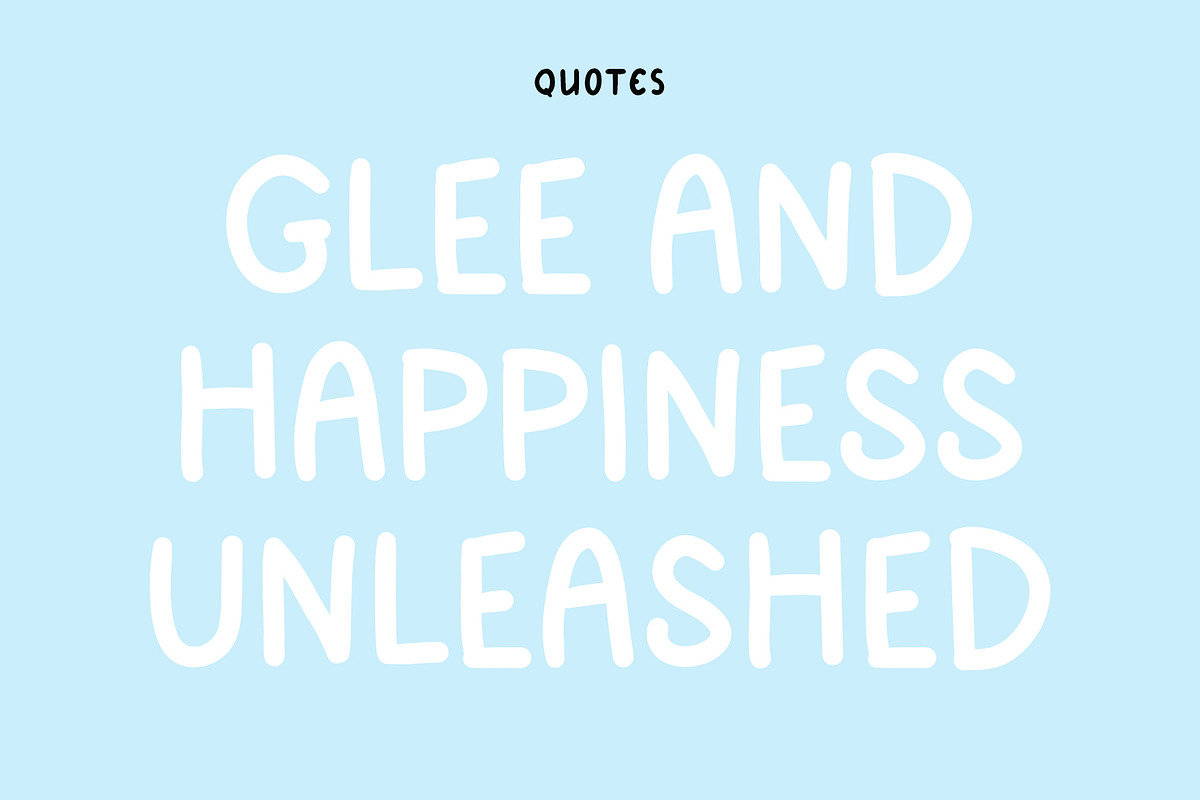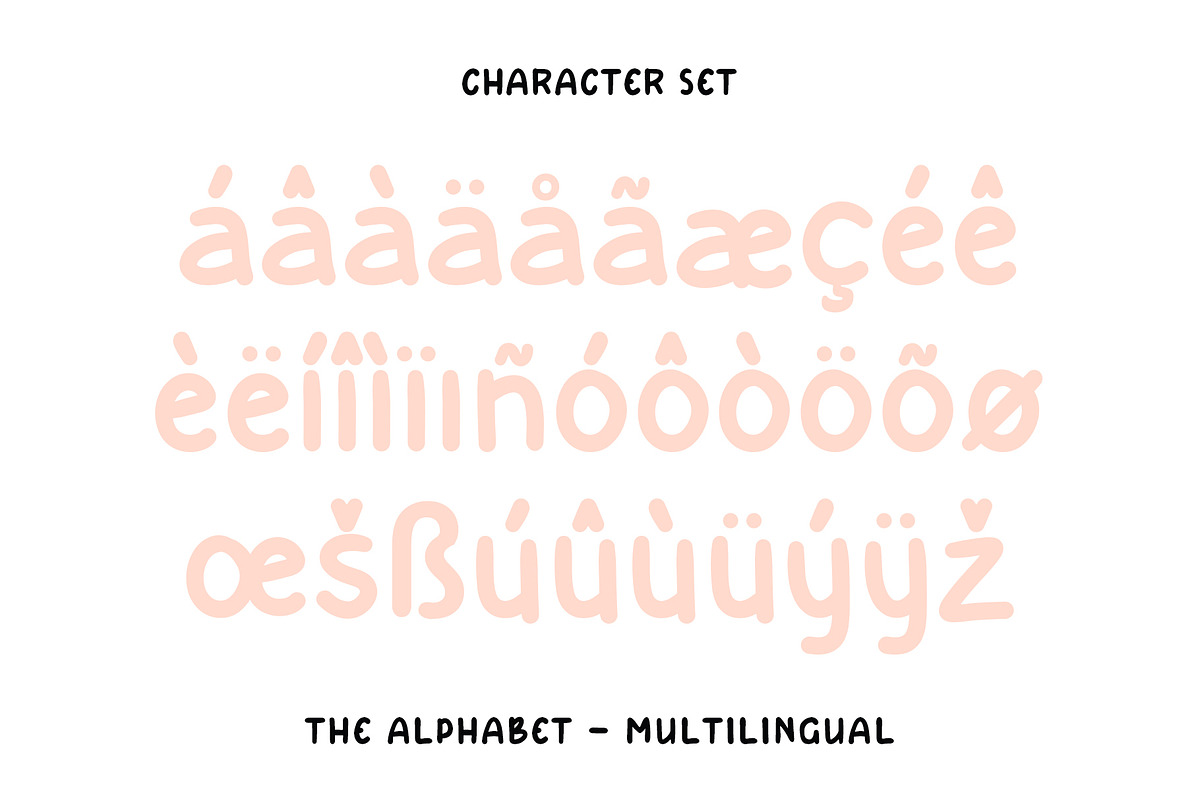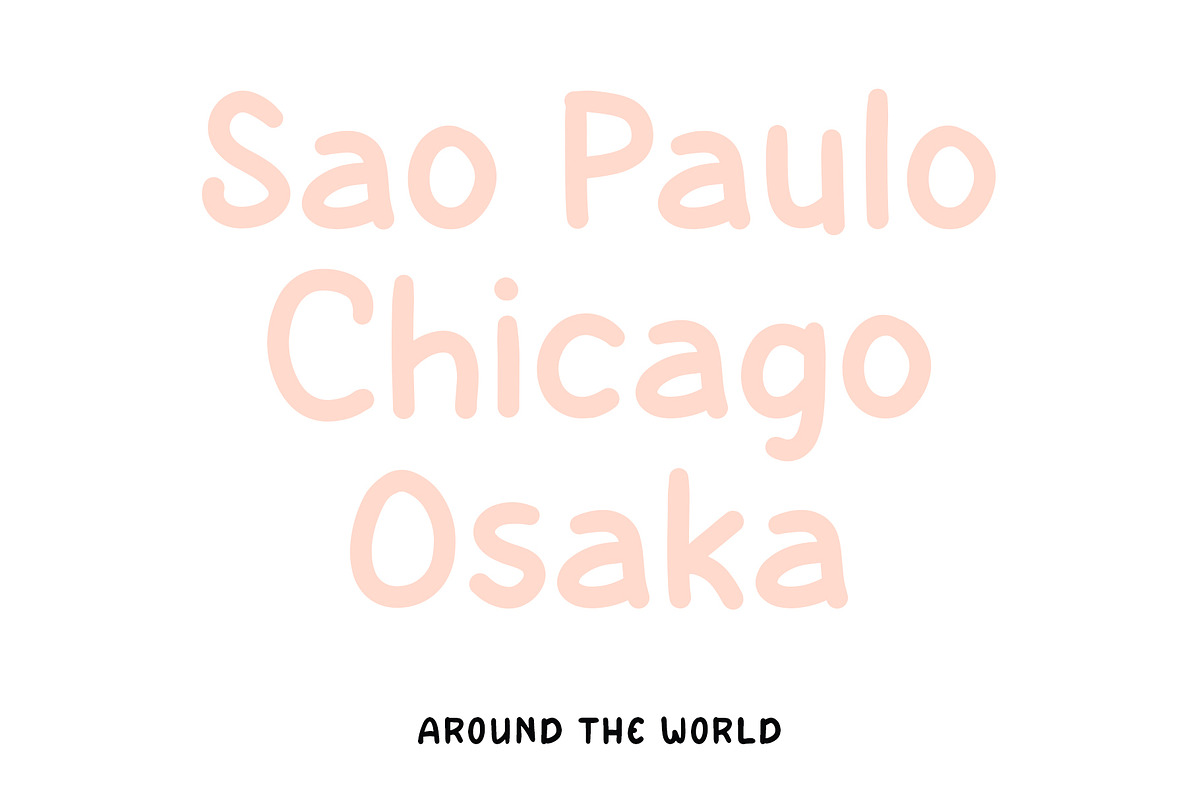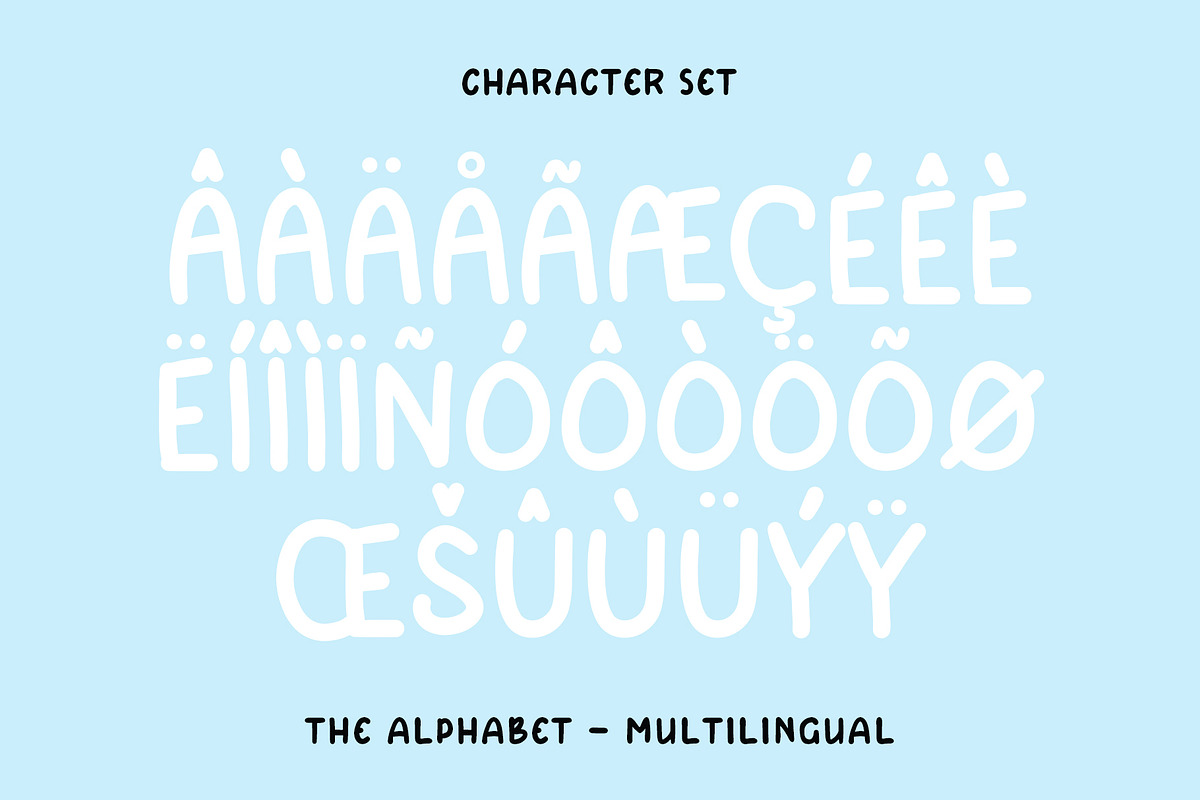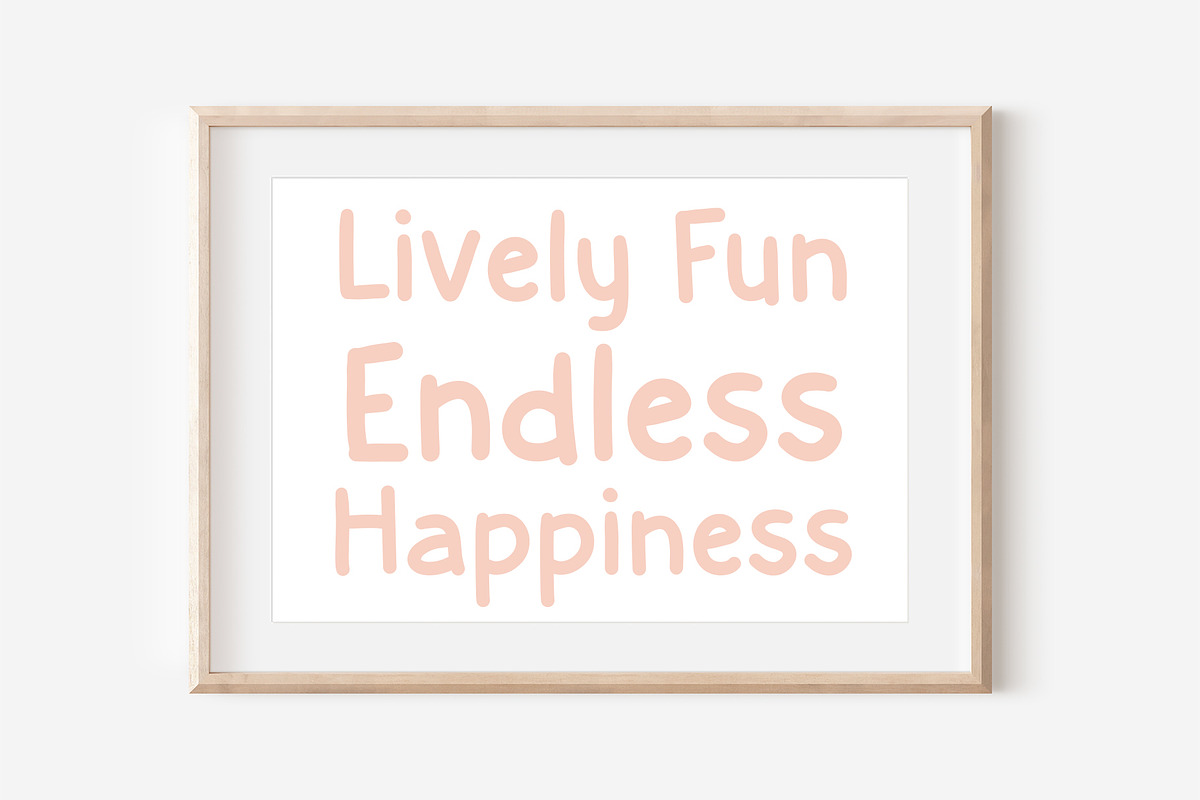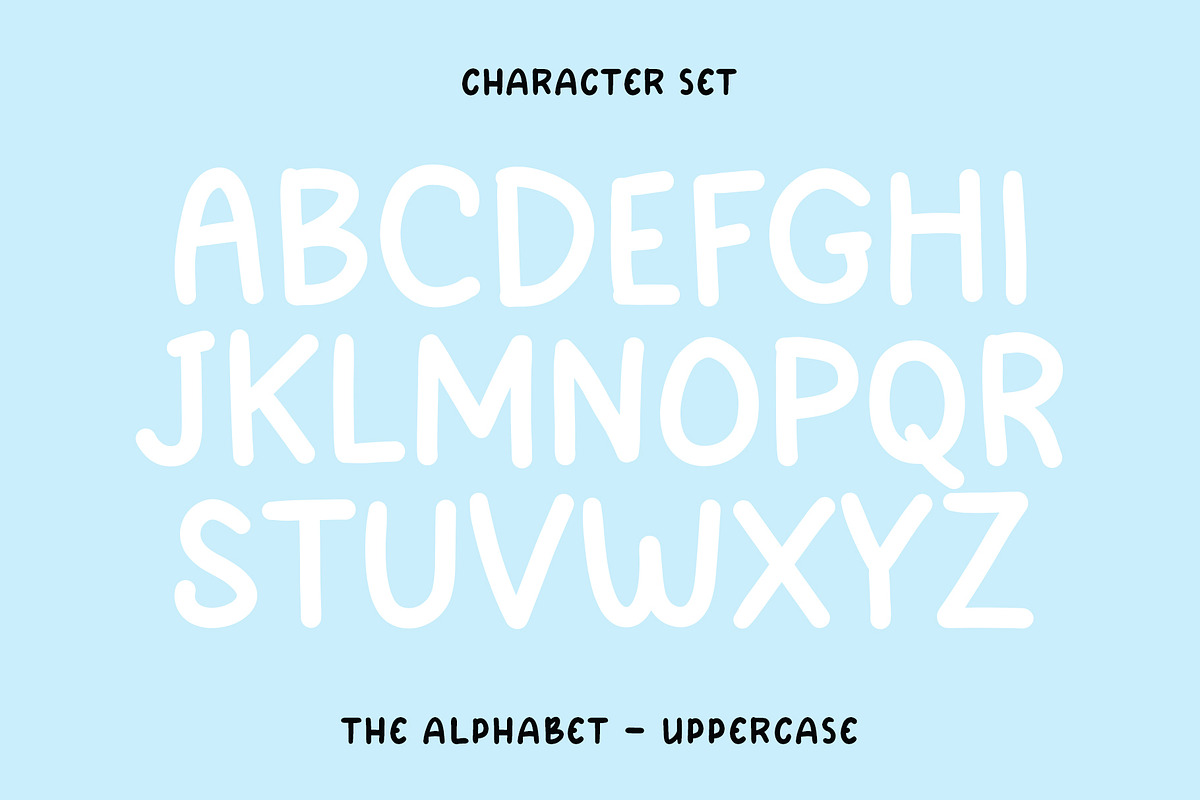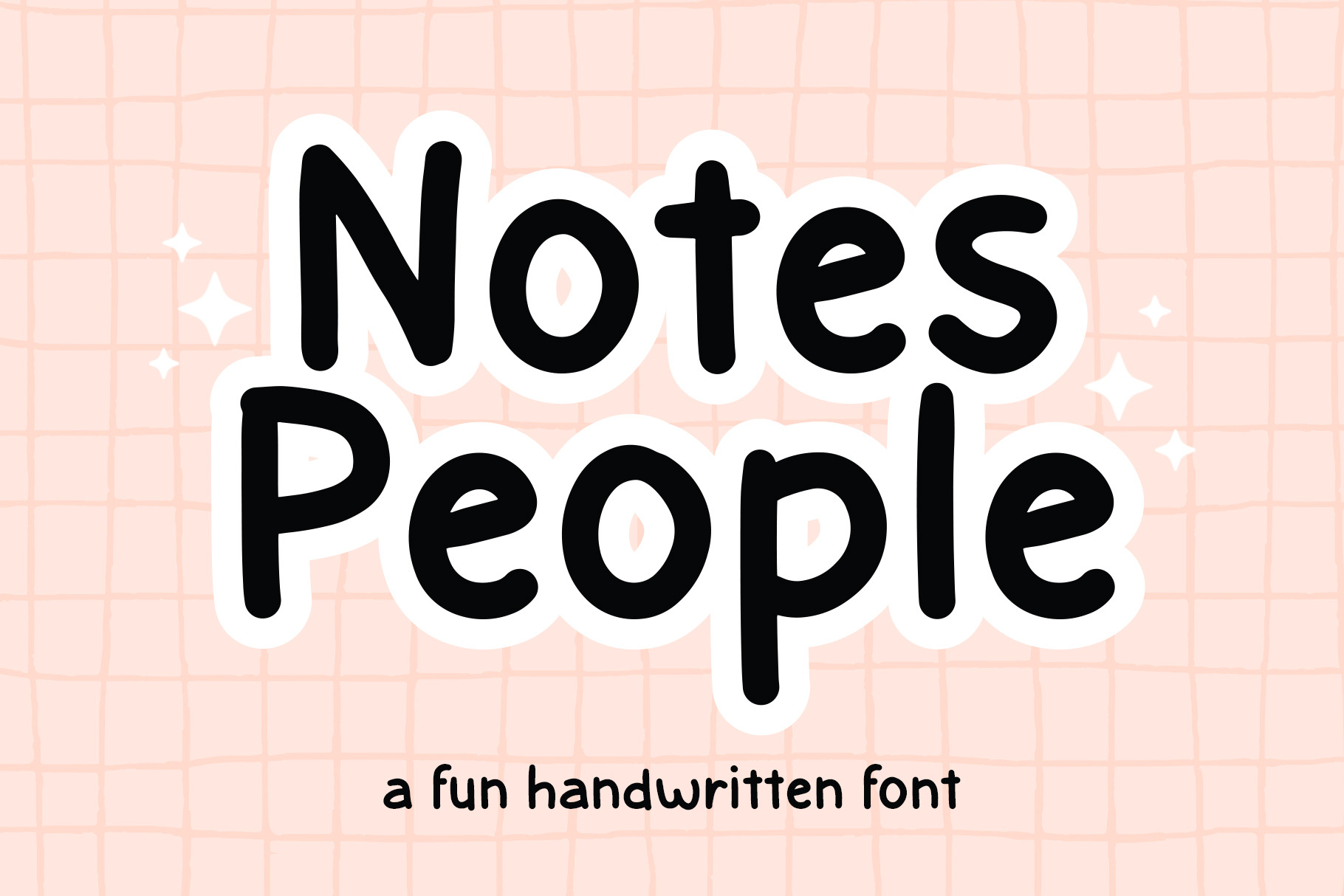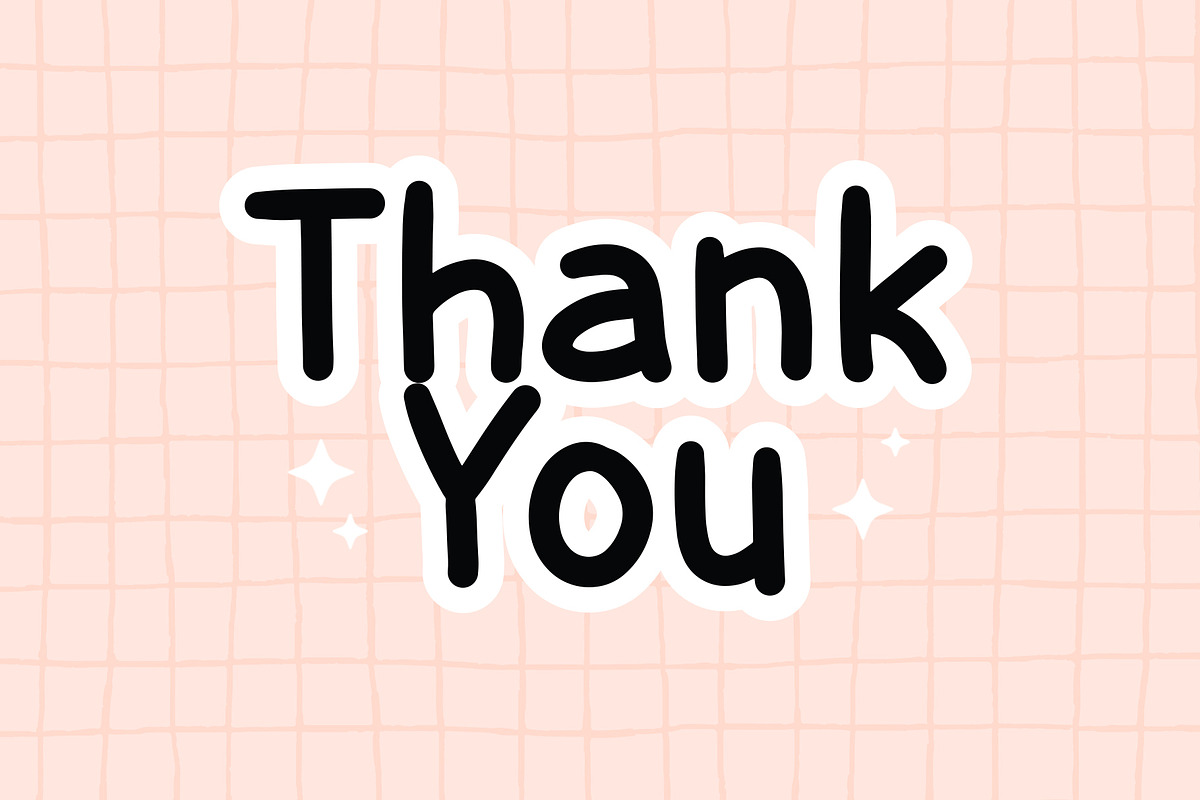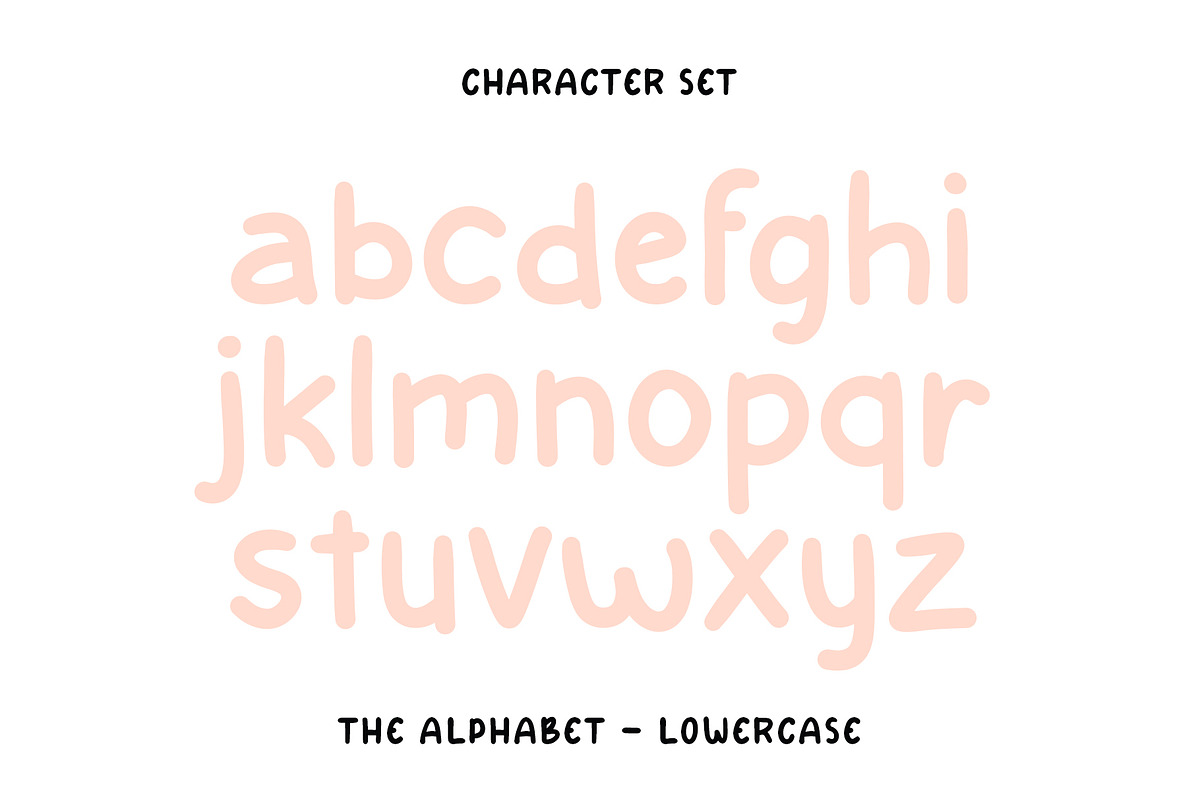
Notes People - Handwriting Font
Notes People is a delightful font that captures the essence of playful handwriting with a touch of cuteness. Its whimsical strokes and charming curves give your text a friendly and approachable vibe, making it perfect for creative projects, personal notes, or anything that calls for a dash of joy. This typeface available in SVG format, compatible with advanced tools such as Cricut and Glowforge, and for use in Procreate. This font is also included in Accent Font or Multilingual Font.
Whether you're designing invitations, crafting messages, or simply adding a touch of fun to your project, Notes People is the go-to choice for a handwritten, cute, and playful typographic style.